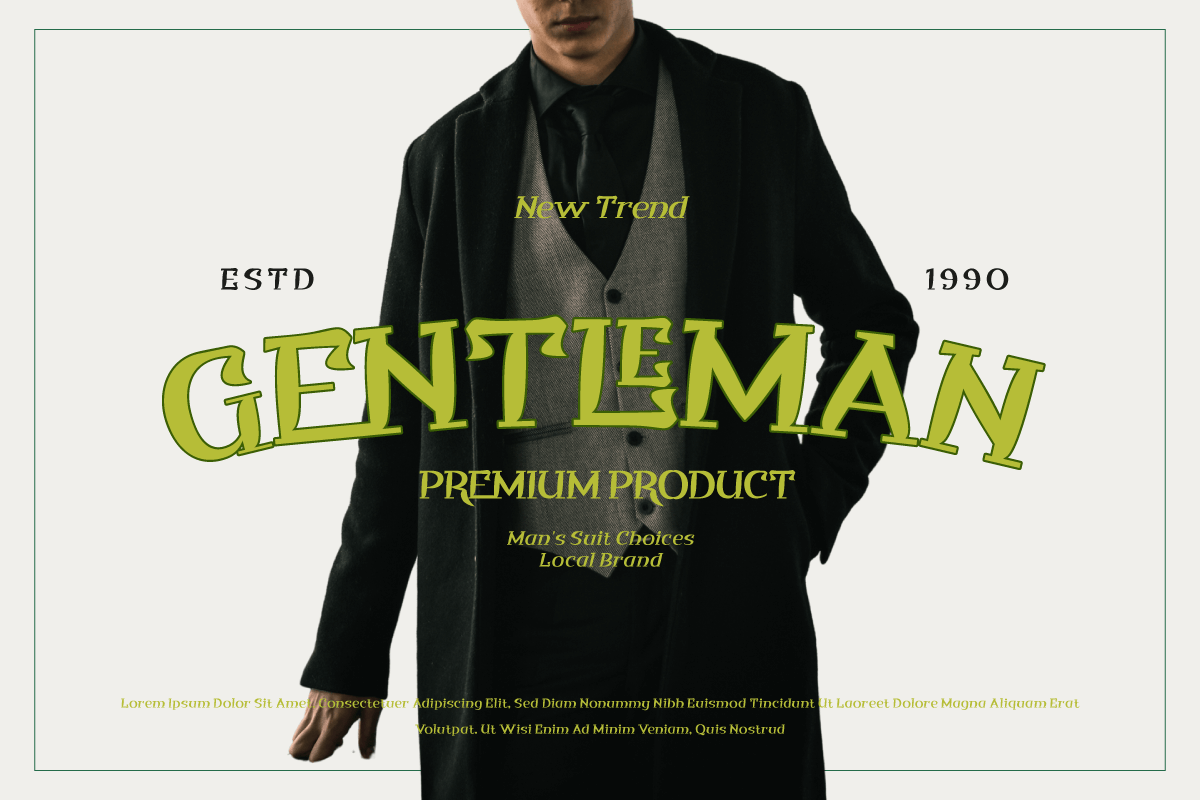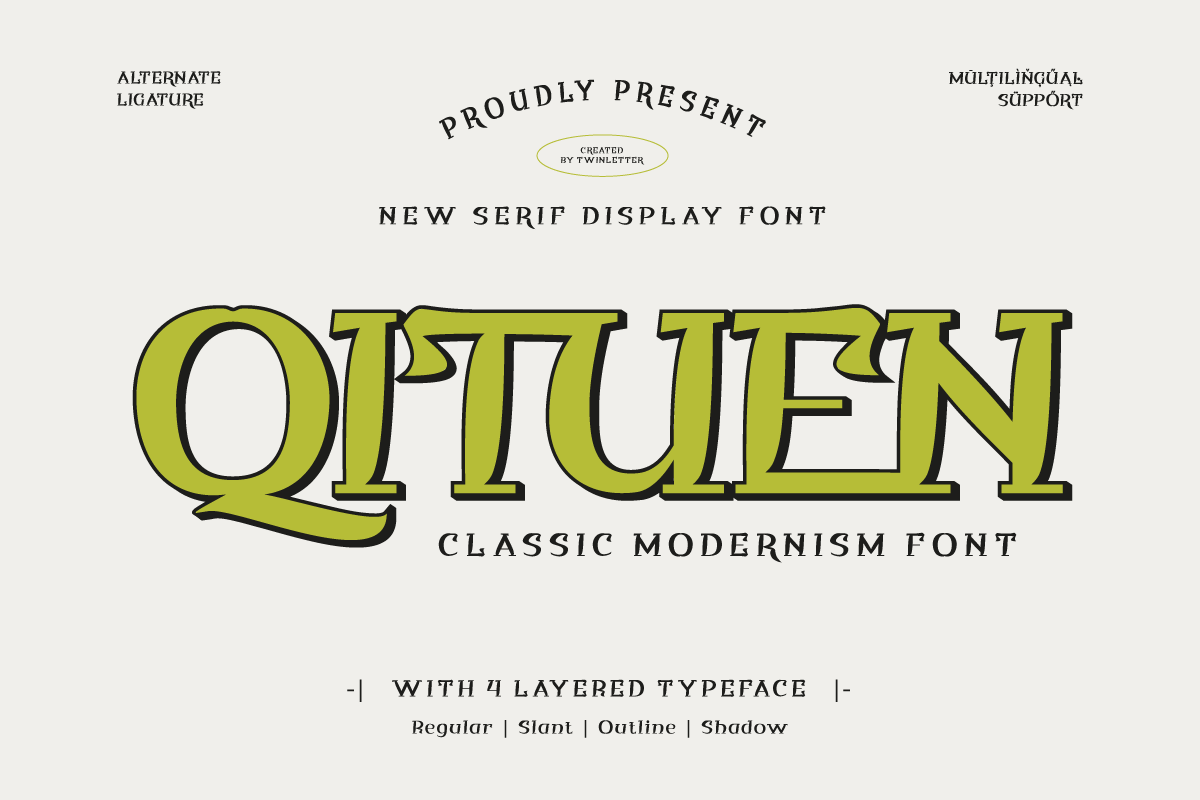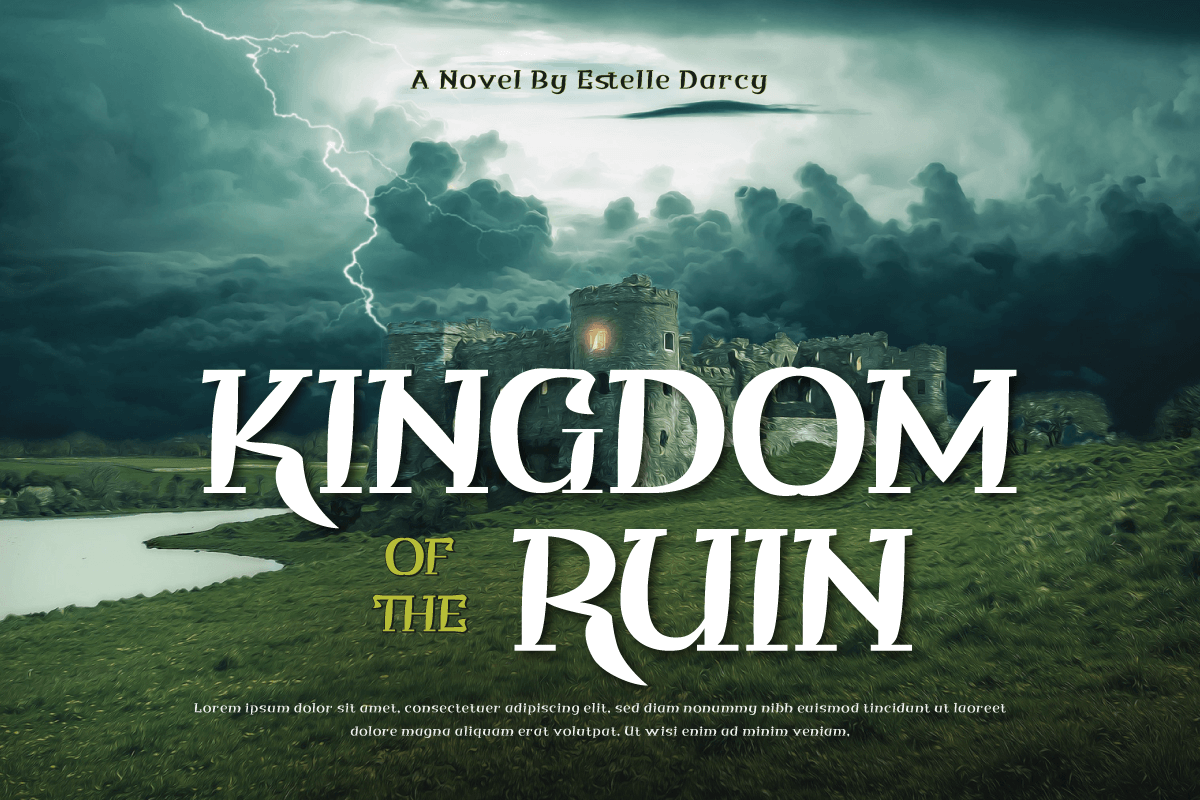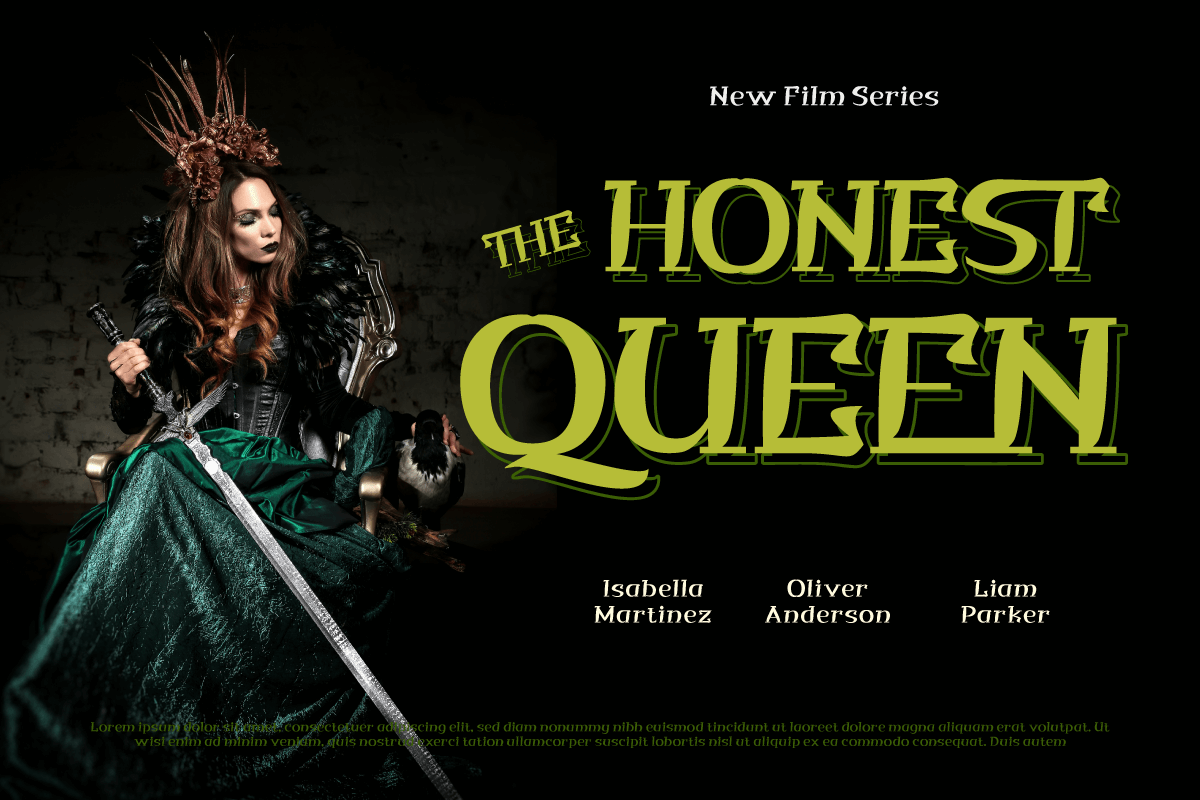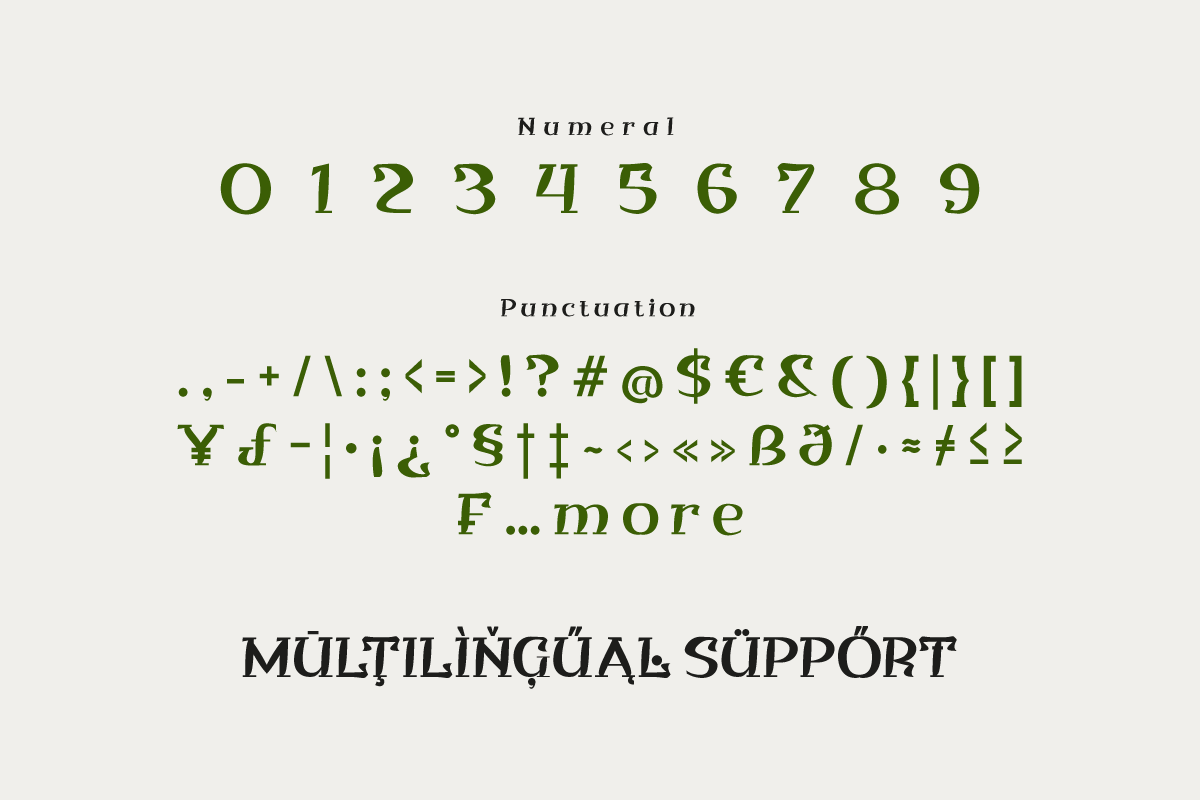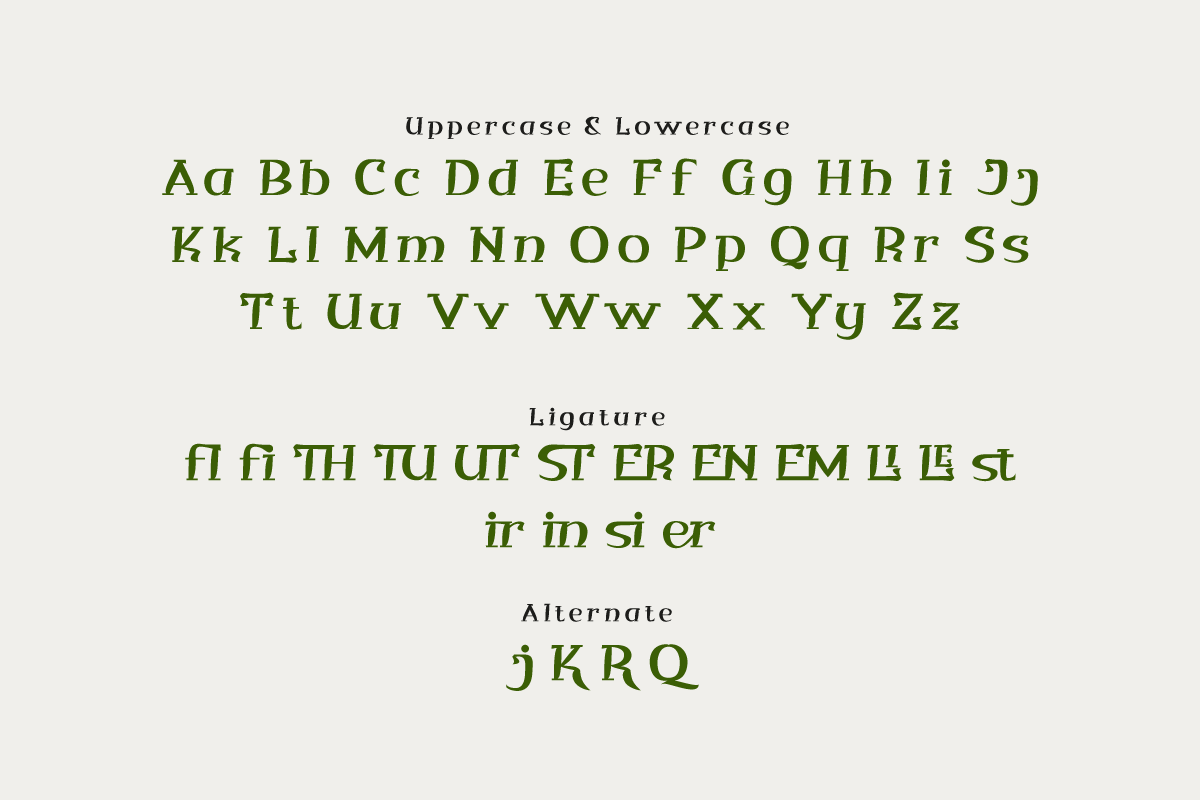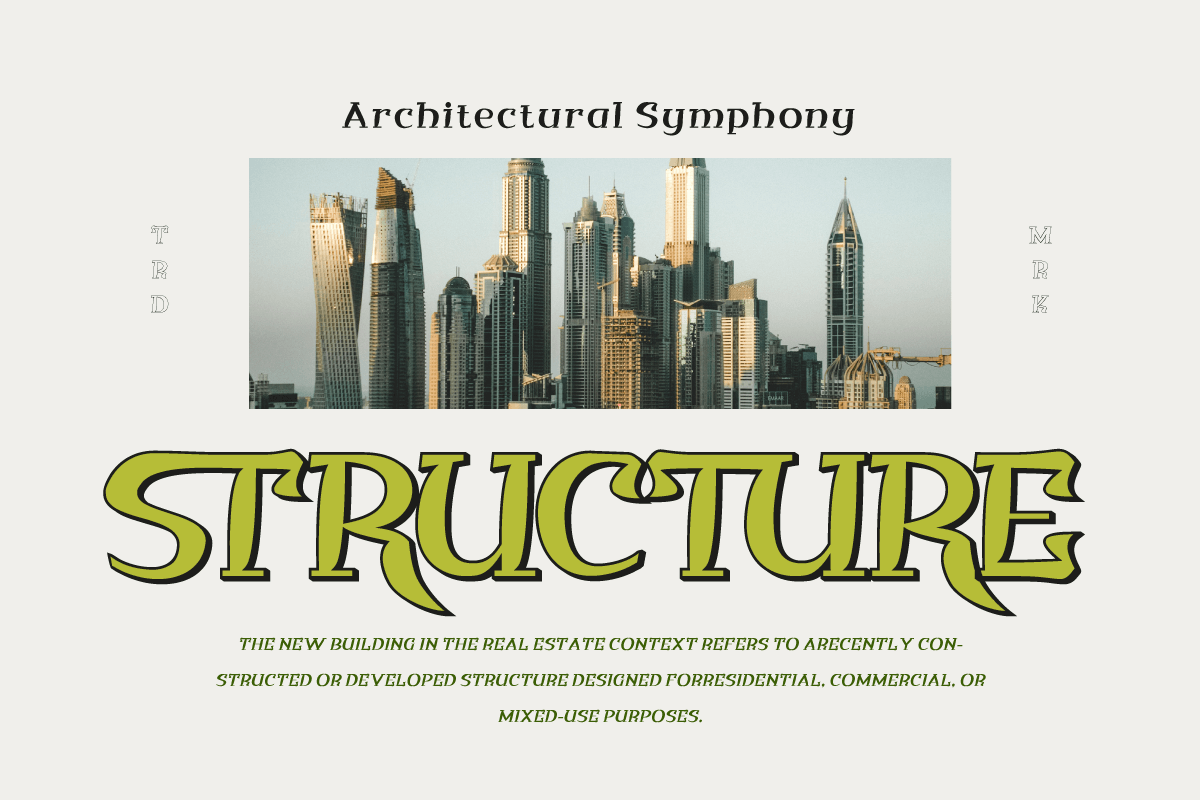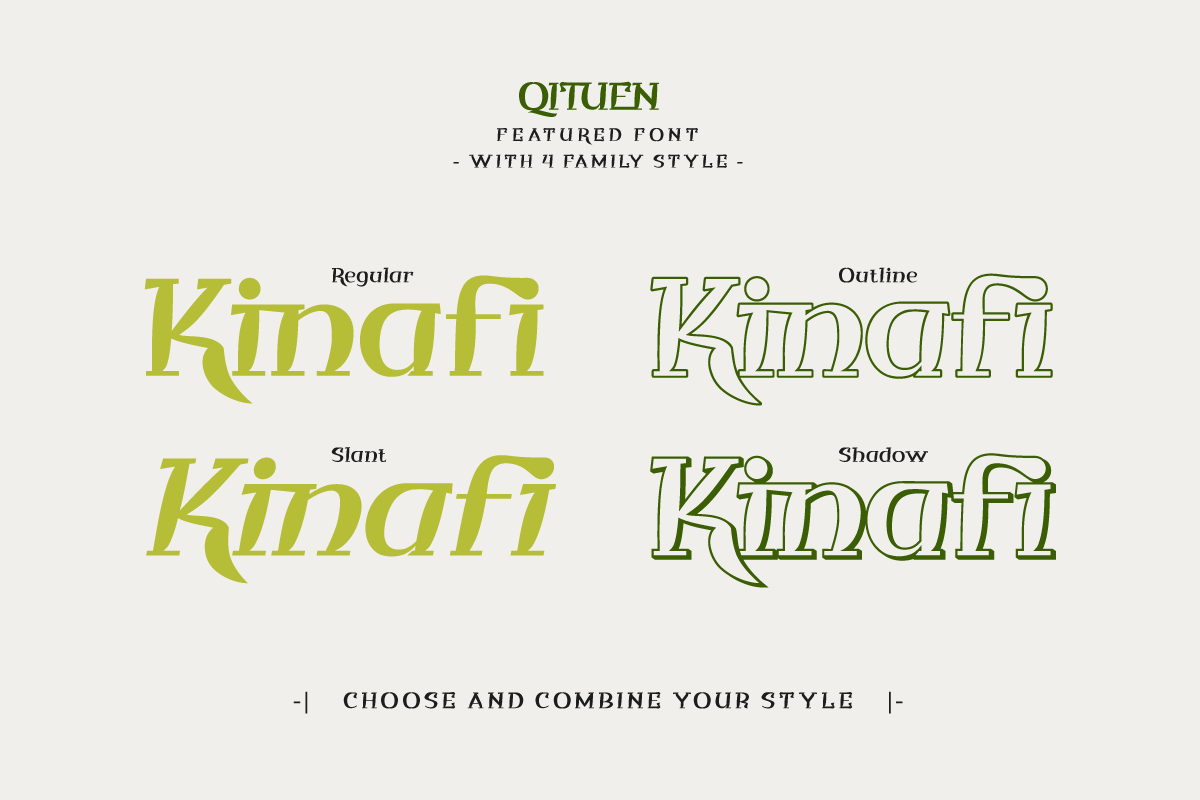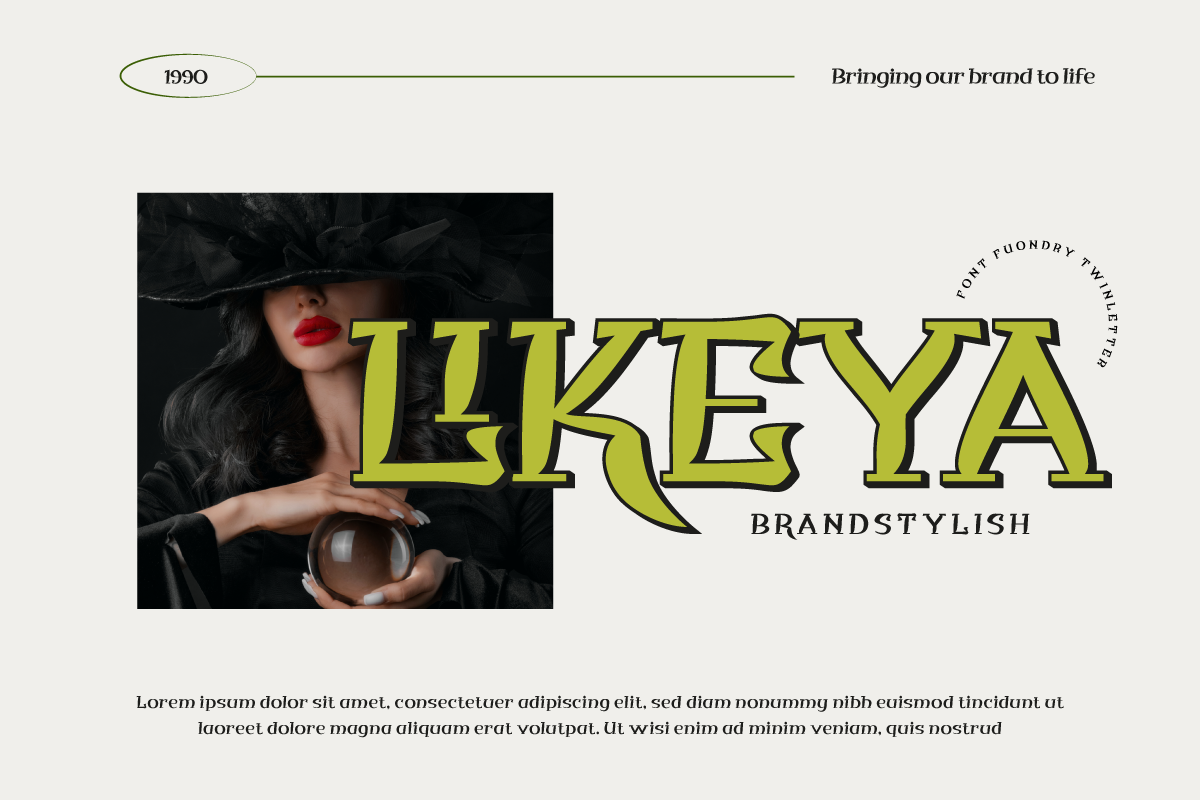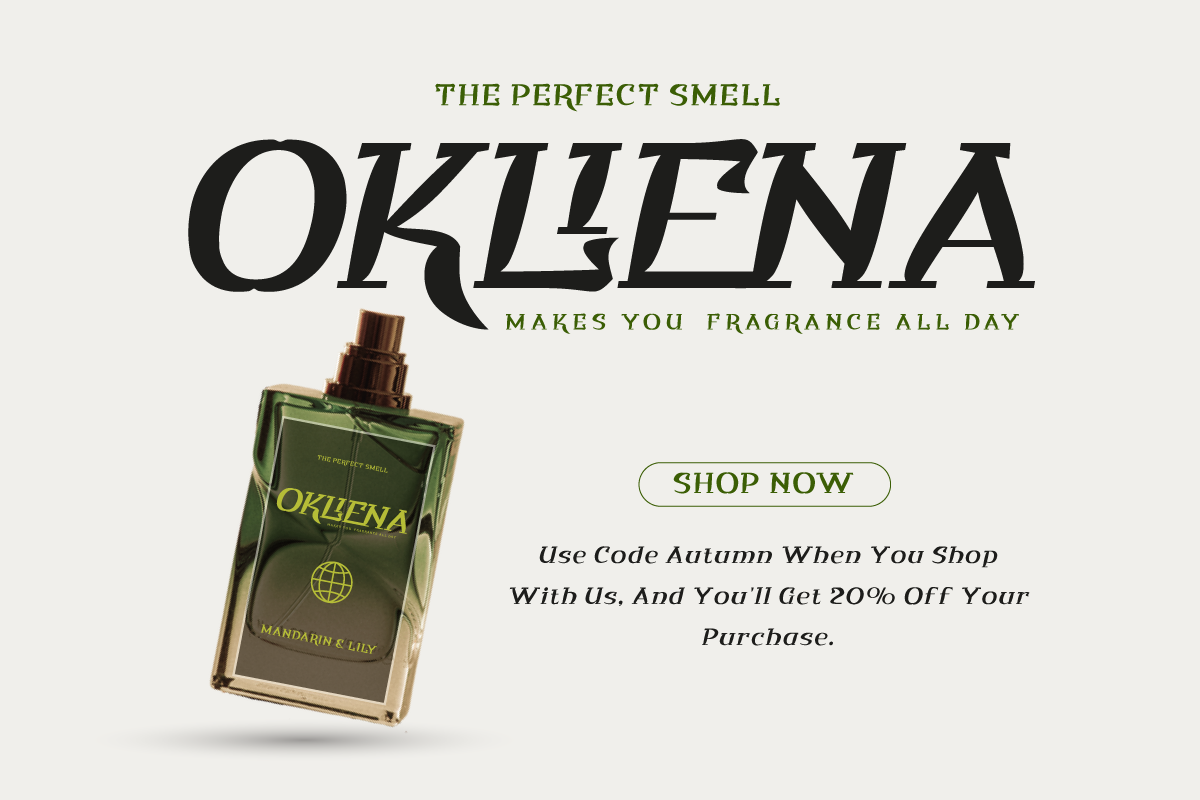
Qituen - Classic Modernism Font
Qituen is a Serif typeface that combines classic elements with a touch of modernism, creating an elegant and understated look. This font is designed to provide a sense of elegance and professionalism to various design projects, especially those that require a classic touch with a modern typographic style.
Each letter in Qituen has a smooth serif, creating a strong and orderly impression. Even though it is classic, this font also incorporates modern elements that keep it relevant and in line with contemporary design aesthetics.
This font is suitable for use in editorial designs, branding, or projects that appreciate the beauty of classic typography but still want to maintain a modern touch.
Qituen presents a beautiful blend of traditional elegance and modernist aesthetics. With its clean design and well-balanced proportions, this font can be a solid choice for projects that appreciate the beauty of classic typography with a subtle modern twist.